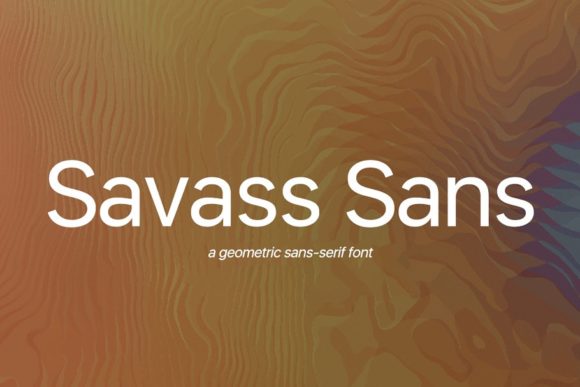
Introducing Savass Sans Font, a captivating and dynamic addition to your typography collection. Crafted by the talented Alvaro Thomaz Oliveira, this sans serif gem draws inspiration from the iconic fonts Din, Gotham, and Helvetica. With its powerful aura and sleek design, Savass Sans Font is the perfect choice for both headlines and small texts.
Immerse yourself in a world of endless possibilities as Savass Sans Font elevates your designs to new heights. Its versatility knows no bounds, effortlessly adapting to any project you dare to embark upon. Let this font be your creative companion, empowering your ideas and breathing life into your digital endeavors.
The beauty of Savass Sans Font lies in its ability to command attention. Its bold and captivating presence grabs hold of your audience, leaving a lasting impression. Whether you seek to convey a sense of authority, elegance, or modernity, this font effortlessly adapts to your desired mood and tone.
Embrace the potential of Savass Sans Font and unlock a limitless range of creative expressions. With its clean lines, sharp edges, and impeccable spacing, your texts will exude professionalism and sophistication. Watch as your words come to life, effortlessly capturing the essence of your message.
Don't settle for ordinary fonts when you can have the extraordinary. Savass Sans Font is the secret weapon that will set your designs apart from the rest. Its unique blend of charisma and functionality will captivate your audience and keep them hooked. Take your projects from ordinary to extraordinary with the power of Savass Sans Font.